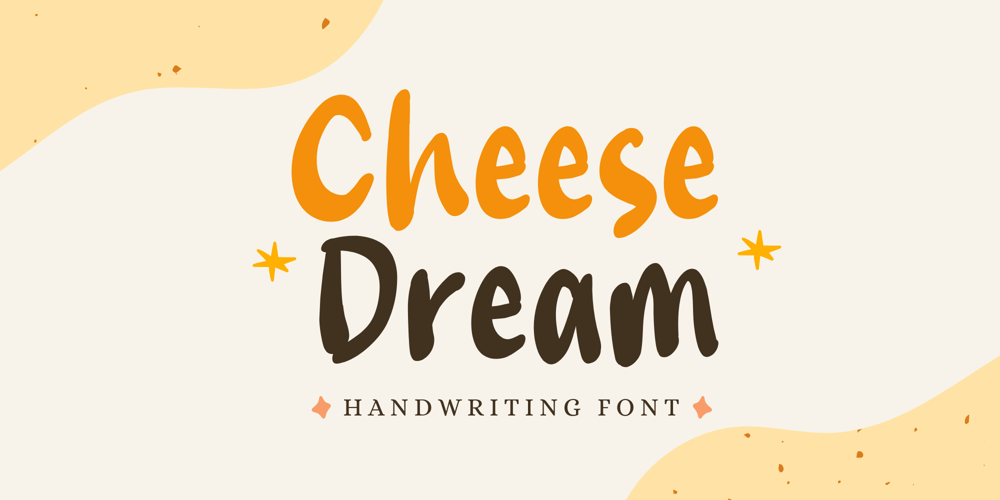
Cheese Dream Font Family was designed by Hasna Viola and published by Violatype. Cheese Dream contains 1 styles and family package options. Introducing “Cheese Dream,” a handwriting font that effortlessly adds a touch of whimsy and individuality to your designs.“Cheese Dream” is your perfect creative companion for crafting captivating magazine layouts, establishing a memorable brand identity through logos, and addressing a wide range of design needs.Every character in “Cheese Dream” radiates the warmth and charm of handcrafted artistry, injecting a personalized and elegant touch into your designs. Begin an enriching creative journey with the unique allure of “Cheese Dream,” where each letter is a brushstroke of artistic expression, poised to captivate and inspire your audience.Cheese Dream Multilingual Support ( Support for 91 Languages )If you have any questions, don’t hesitate to contact us